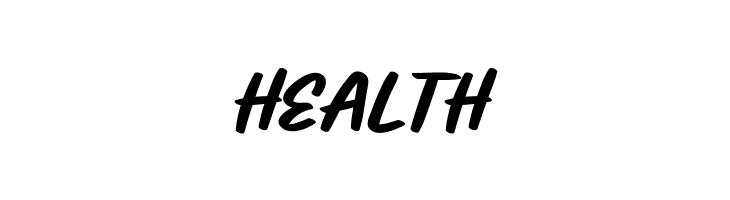
A bold, playful font with a brush-like, hand-drawn style.
A decorative, gothic-inspired font with intricate serifs and flourishes.
A bold, geometric font with a modern and assertive style.
A fluid and elegant script font with dynamic letterforms and cohesive design.
A playful, casual handwritten font with smooth, flowing lines and a friendly appearance.
A dynamic calligraphic font with bold, fluid strokes and artistic flair.
A gothic, dramatic font with sharp, angular lines and pointed serifs.
A display font made from images of retro boomboxes and cassette tapes.
A bold, graffiti-inspired font with sharp angles and sweeping lines.
A bold, expressive script font with fluid, dynamic strokes.
A bold, rounded font with a playful and modern aesthetic.
A classic serif font with elegant flourishes and balanced weight.
A modern, decorative font with a city skyline motif integrated into tall, narrow letterforms.
A bold, geometric, and condensed font with a modern, edgy style.
A playful, bold font with a retro halftone pattern and rounded characters.
Ornate, vintage-inspired catchword display font with bold, decorative styling.
A dynamic and expressive script font with fluid, cursive letterforms.
A bold, grunge-style font with a dripping, distressed effect.
A playful and elegant script font with flowing, cursive letterforms and moderate contrast.
A fluid and elegant script font with smooth, flowing lines and a slight slant.
A playful, casual handwritten font with flowing strokes and rounded edges.
A modern, geometric sans-serif font with consistent stroke width and clear character distinction.
A casual, handwritten font with a lively and flowing style.
A sleek, narrow, and italicized font with a modern and elegant style.
A lively, flowing script font with elegant cursive letterforms and dynamic contrast.
A bold, rough, semi-italic font with a dynamic and edgy style.
An elegant, flowing script font with smooth, cursive strokes.
Decorative serif font with high contrast and festive, ornamental style.
A lively, handwritten font with fluid strokes and a playful style.
A decorative and abstract font with geometric and futuristic elements.
A fluid, cursive font with interconnected letters and a natural handwriting style.
An elegant and flowing script font with connected characters and ornate flourishes.
A modern, elongated font with a sleek, geometric style.
A lively, handwritten script font with medium contrast and fluid strokes.
A modern, italicized font with smooth curves and consistent stroke width.